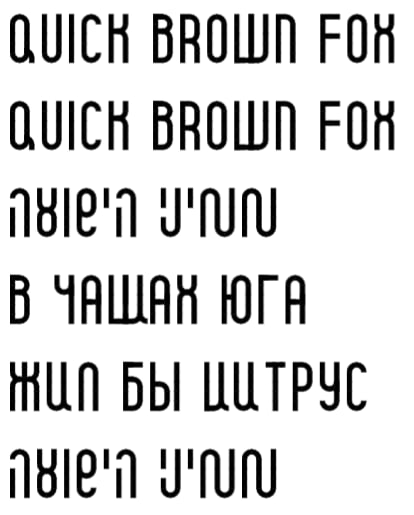
• DOING Greek, Cyrillic, Georgian
TODO accents
Mistakes:
The Q looks like the apple logo.
Can you fix the font please?
@fgm12345 I tried to give it a right-facing tail but it looked ugly, will think of something, TY for advice